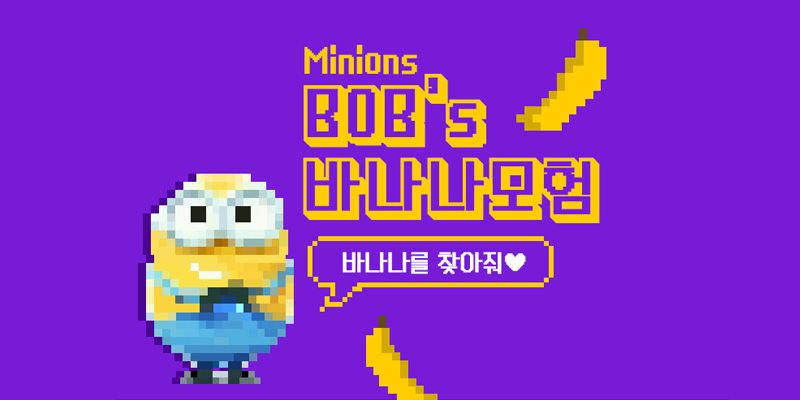
Rix Video Game Font Free Download is a bold, futuristic typeface inspired by video game graphics and retro arcade aesthetics. Featuring sharp, blocky letterforms and a digital vibe, this font is perfect for creating designs related to gaming, esports, tech, or anything with a modern, energetic, or pixelated theme.
Rix Video Game Font Free Download is ideal for headlines, logos, posters, gaming-themed merchandise, and digital interfaces that need to evoke a sense of excitement and nostalgia. Its clean, angular design captures the essence of classic video game fonts while maintaining a modern feel, making it great for both retro and contemporary gaming designs.